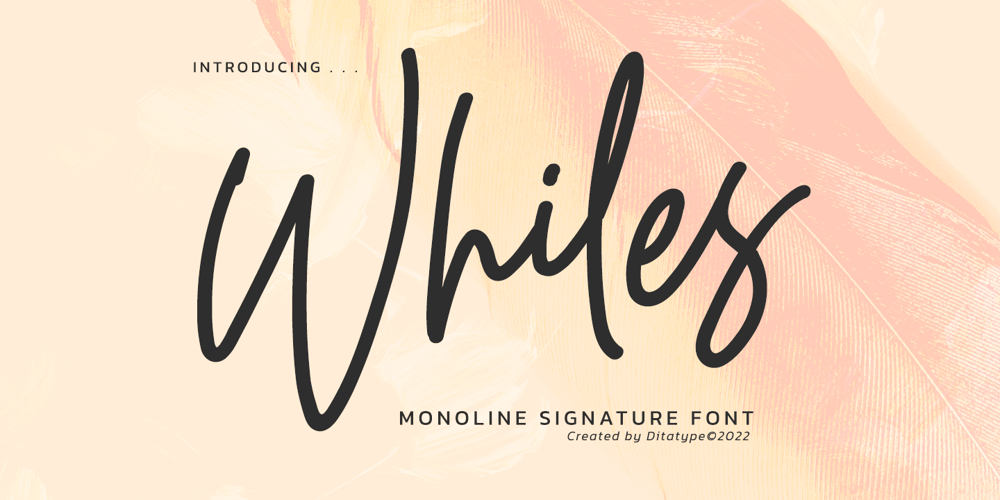
Whiles
Whiles font
Whiles Font Family was designed by Donis Miftahudin and published by Ditatype. Whiles contains 1 styles and family package options. Ready to get something epic?Whiles is a monoline signature font. The characters have inconsistent spacing and height that resembles to actual handwriting gives this font natural and elegant feel. It’s easy to read and also work great for any sizes.Features: Ligatures Numerals and Punctuations PUA Encoded It can be used for many design projects, such as poster, logo, book cover, branding, heading, printed product, merchandise, quotes, social media campaign, etc. Get more inspiration about how to use it by seeing the font preview.Thank you for purchasing our fonts. Please don’t hesitate to contact us, if you have any further question or issues. We’re happy to help. Happy Designing.